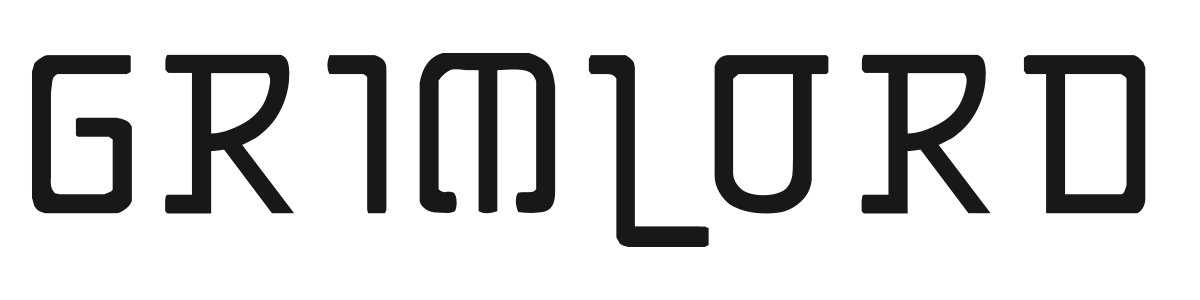
Grimlord
Grimlord is a geometric square sans built from uniform-width strokes bent into angular, rune-like forms with softly rounded corners. The characters have a segmented, almost ritualistic quality that straddles ancient script and futuristic technology. It carries a distinctly dark, mysterious energy suited to fantasy gaming, metal music, and occult-themed branding.